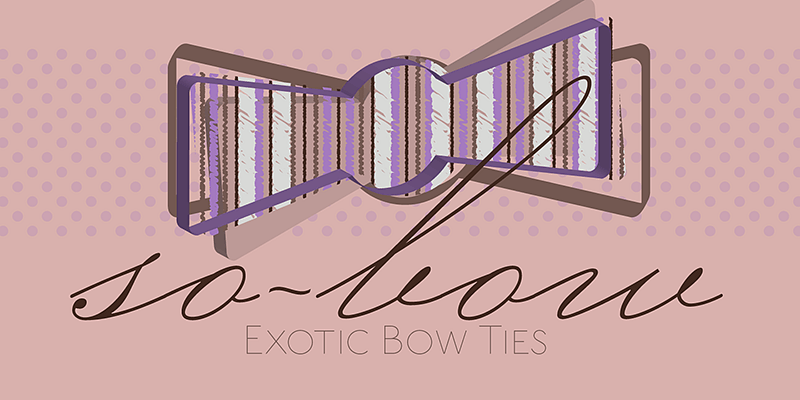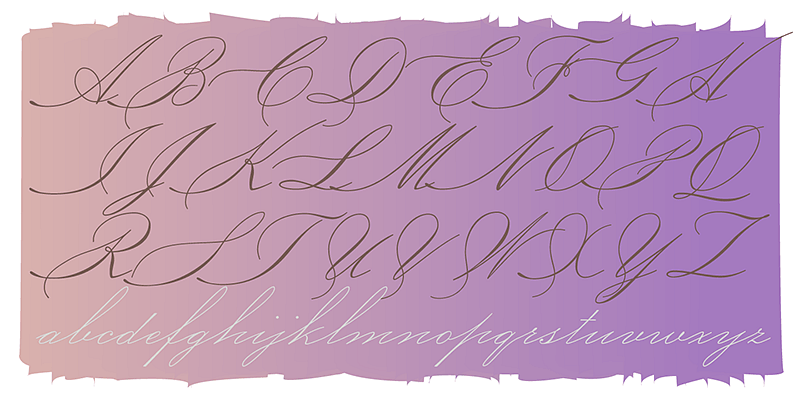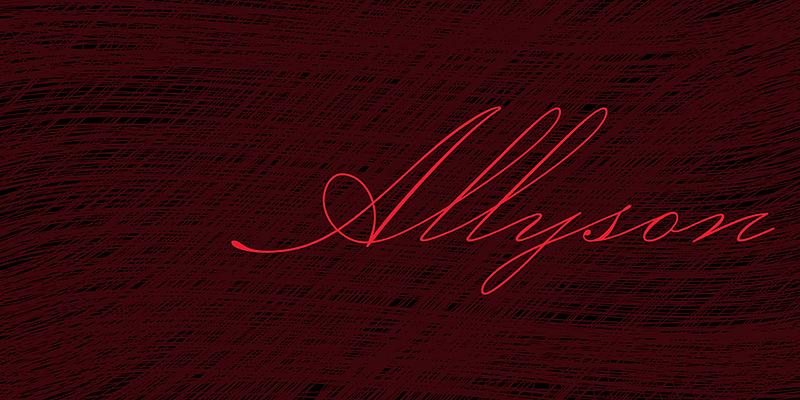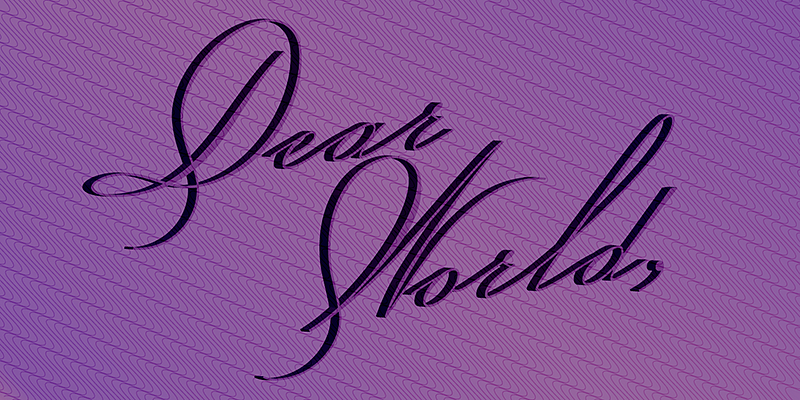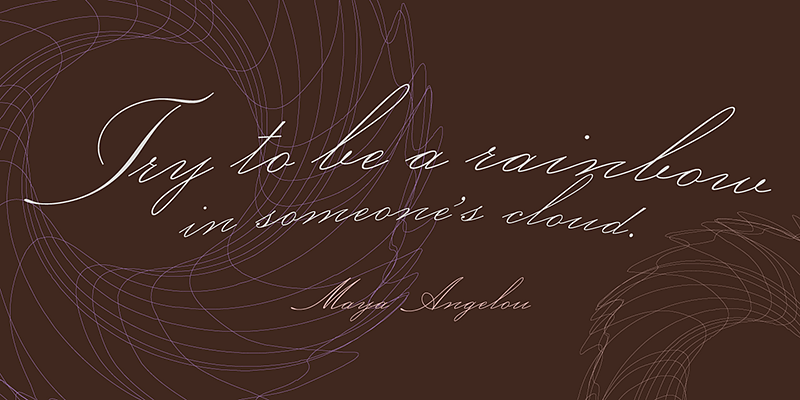
P22 Allyson is based on an old metal font by Barnhart Bros. & Spindler named Hazel Script. It has been expanded and redrawn to meet the needs of today’s designers by including a full character set.
P22 Type Foundry specializes in historical typefaces inspired by art, history, and science. The company was created in 1994 in Buffalo, New York, by co-founders Richard Kegler and Carima El-Behairy. The breathtaking array of fonts — which have appeared in films and on numerous commercial products — offers an impressive cornucopia of styles for companies and designers. The P22 Type Foundry collection focuses on historical letterforms that would never have been available in digital form otherwise.